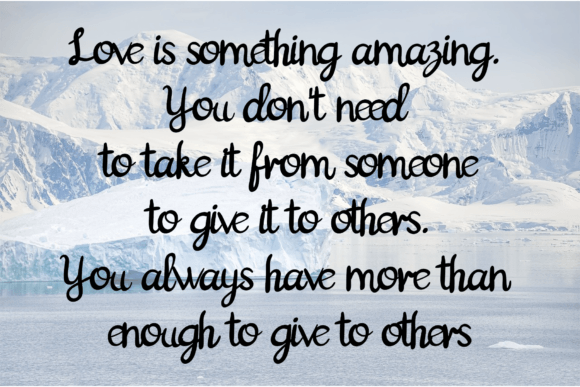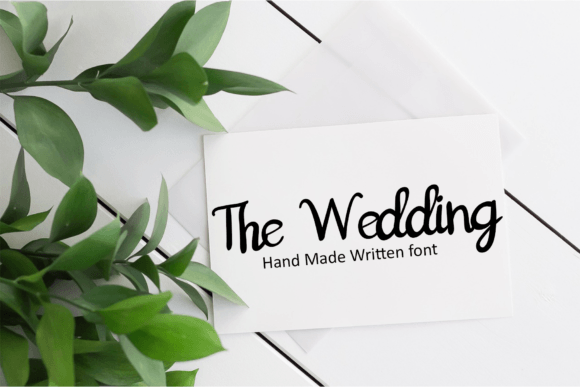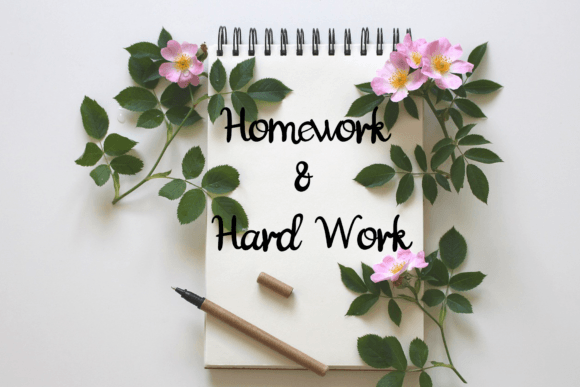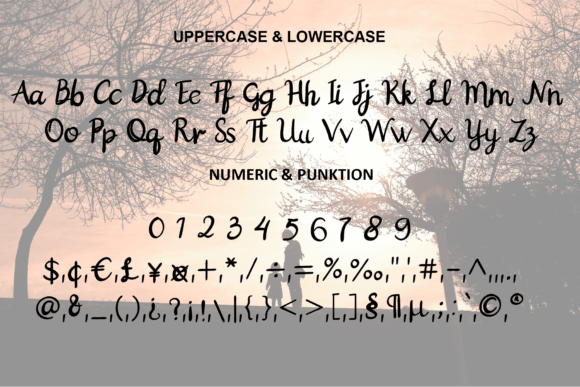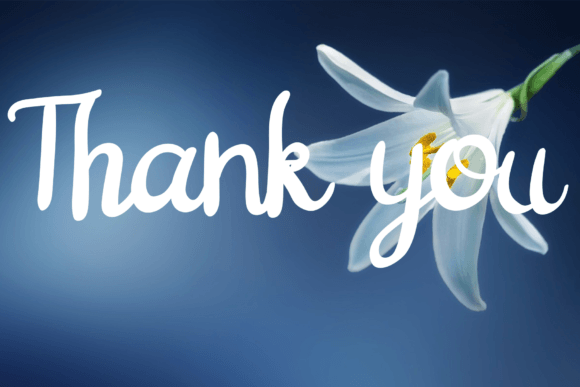
Introducing Good Day Font: The Sweet and Cursive Handwritten Font for Your Design Needs
Are you looking for a font that can add a touch of elegance and whimsy to your designs? Look no further than Good Day Font, a sweet and cursive handwritten font that’s perfect for a variety of design projects. With its gentle and flowing curves, Good Day Font is sure to bring a joyful and romantic touch to your branding, logos, wedding materials, greeting cards, fashion designs, and more.
What Makes Good Day Font Special?
Good Day Font is a unique and versatile font that’s designed to be both elegant and casual. Its cursive script and handwritten feel make it perfect for designs that require a personal touch, while its clean and simple lines ensure that it remains easy to read and understand. Whether you’re creating a logo, a wedding invitation, or a marketing brochure, Good Day Font is sure to add a touch of sophistication and style.
Good Day Font is a versatile font that can be used for a wide range of design projects, including:
• Branding: Use Good Day Font to create a unique and memorable brand identity that sets you apart from the competition.
• Logos: Create a stunning logo that showcases your brand’s personality and style with Good Day Font.
• Wedding Materials: Add a touch of romance and elegance to your wedding invitations, programs, and other materials with Good Day Font.
• Greeting Cards: Create beautiful and heartfelt greeting cards for any occasion with Good Day Font.
• Fashion Designs: Use Good Day Font to add a touch of style and sophistication to your fashion designs, lookbooks, and marketing materials.
Why Choose Good Day Font?
There are many reasons why Good Day Font is the perfect choice for your design needs. Here are just a few:
• Unique and Versatile: Good Day Font is a one-of-a-kind font that’s versatile enough to be used for a wide range of design projects.
• Elegant and Casual: Good Day Font strikes the perfect balance between elegance and casualness, making it perfect for designs that require a personal touch.
• Easy to Read: Despite its cursive script, Good Day Font is easy to read and understand, making it perfect for designs that require a clear and concise message.
• High-Quality: Good Day Font is a high-quality font that’s designed to deliver exceptional results in any design project.
Tips and Tricks for Working with Good Day Font
Here are a few tips and tricks to help you get the most out of Good Day Font:
• Use it with a contrasting font: Pair Good Day Font with a contrasting font to create visual interest and add depth to your designs.
• Experiment with different sizes: Good Day Font looks great in a variety of sizes, so don’t be afraid to experiment and find the perfect size for your design.
• Add a personal touch: Use Good Day Font to add a personal touch to your designs, such as a handwritten note or a custom illustration.